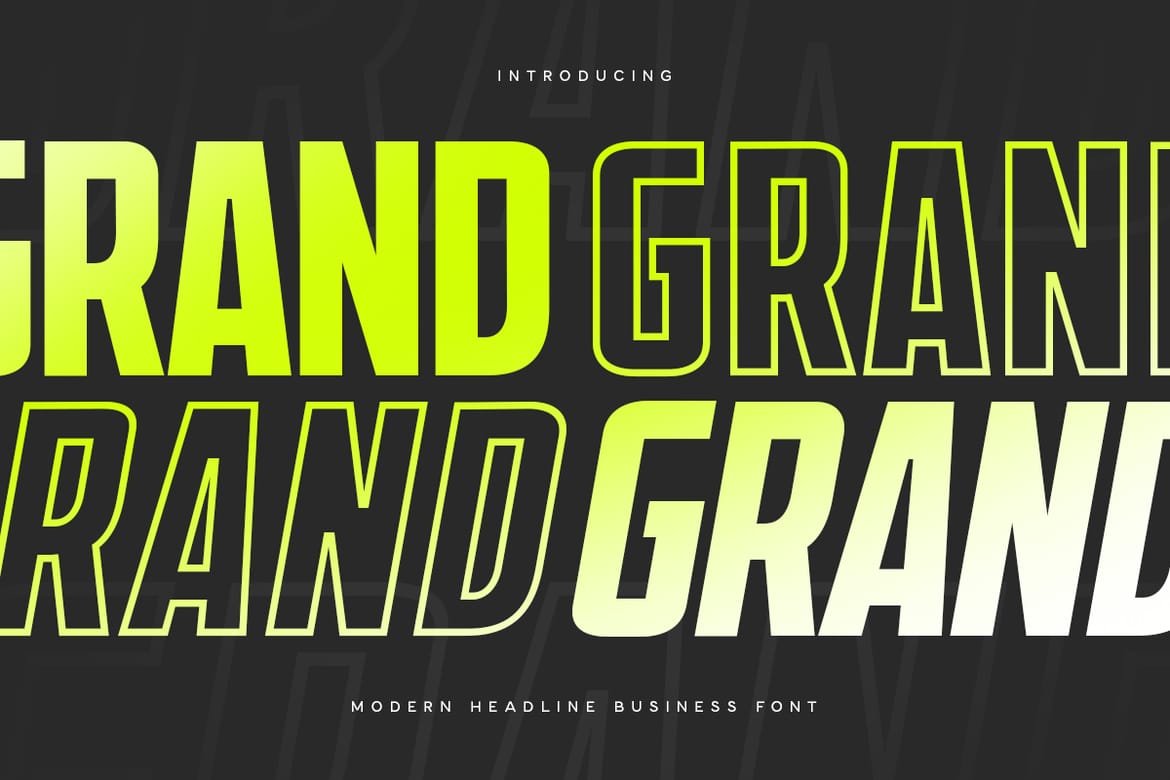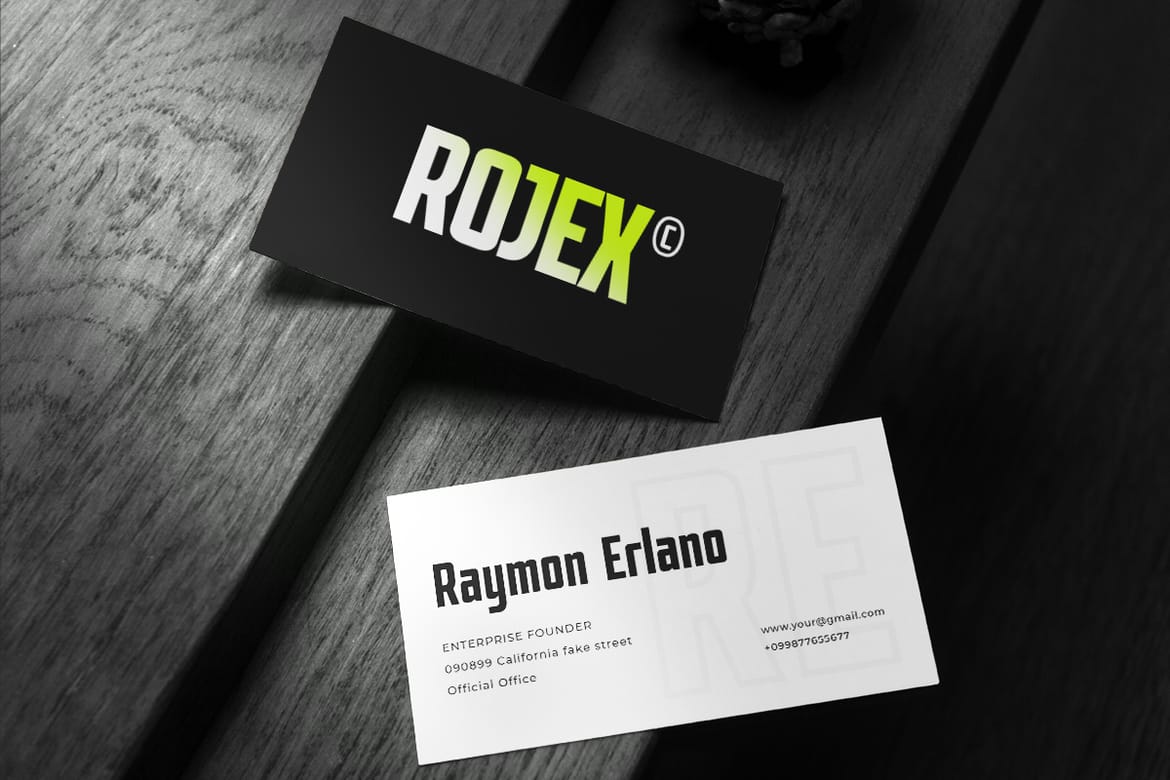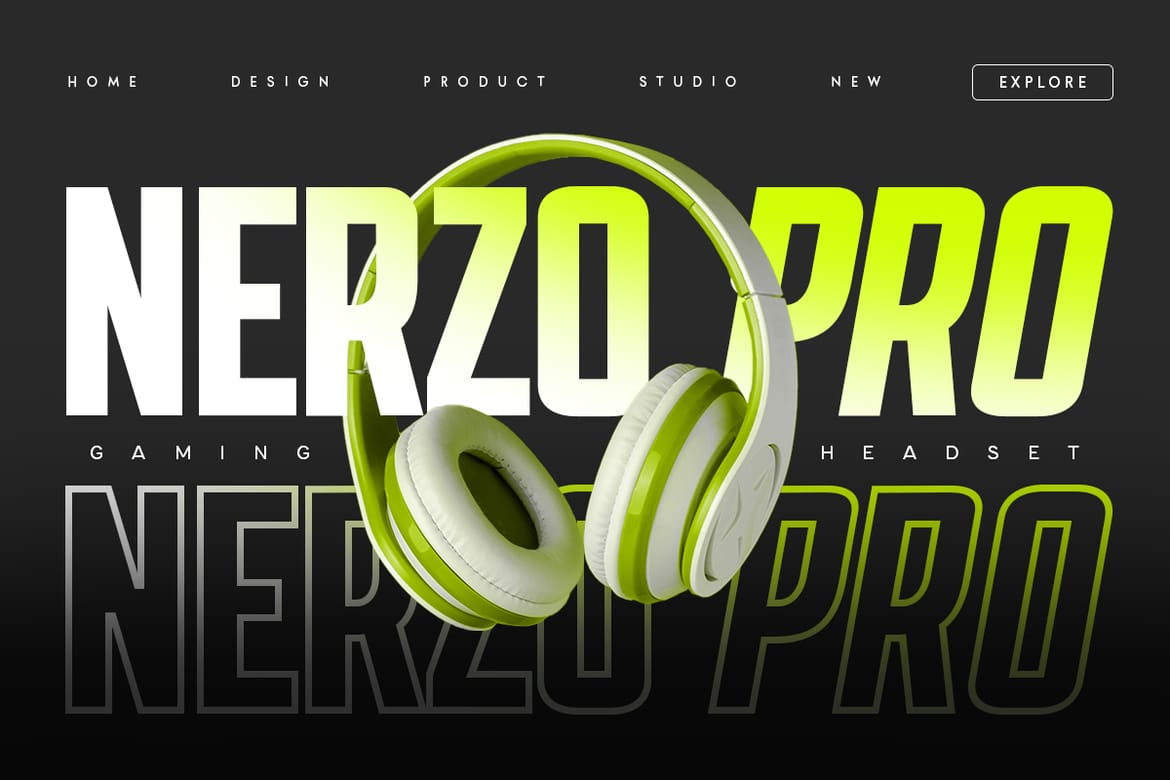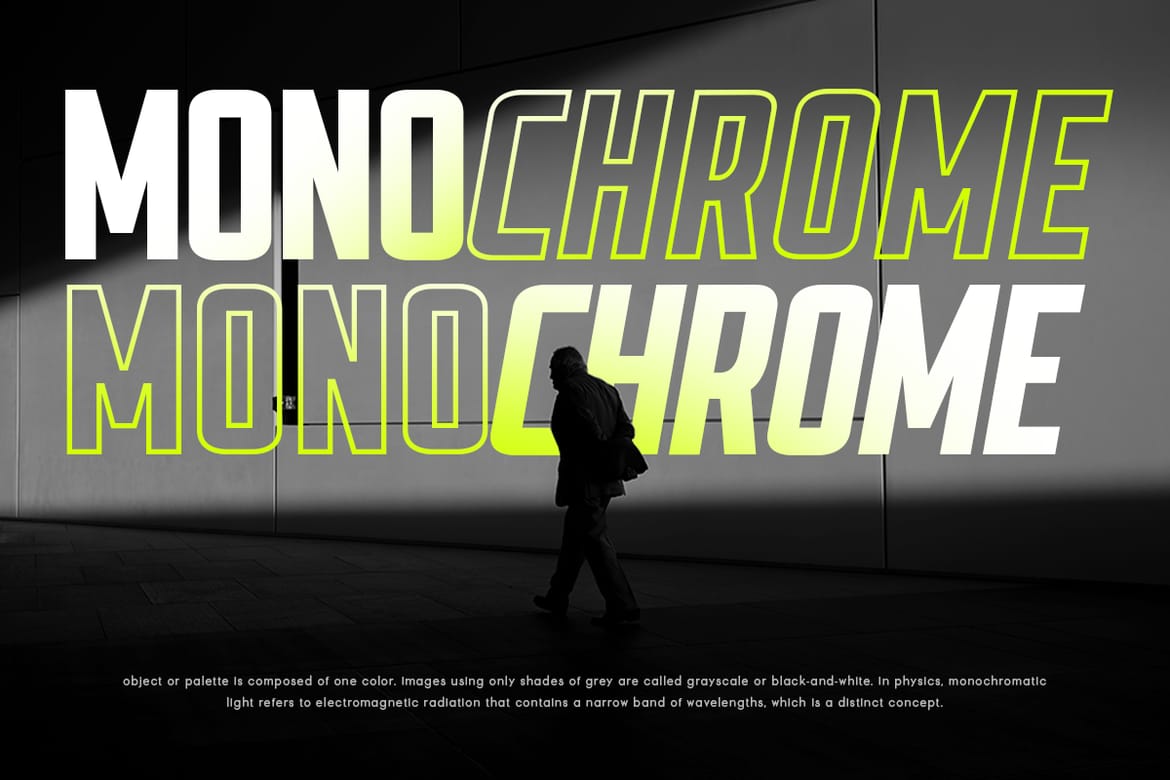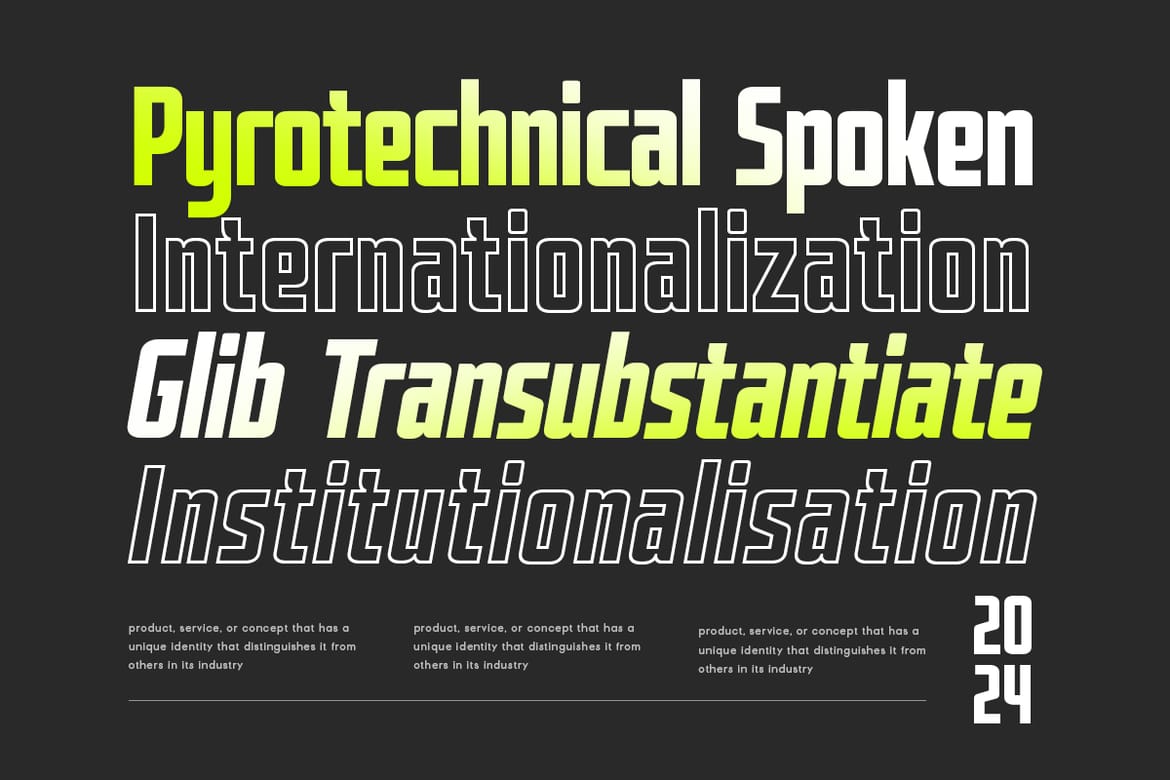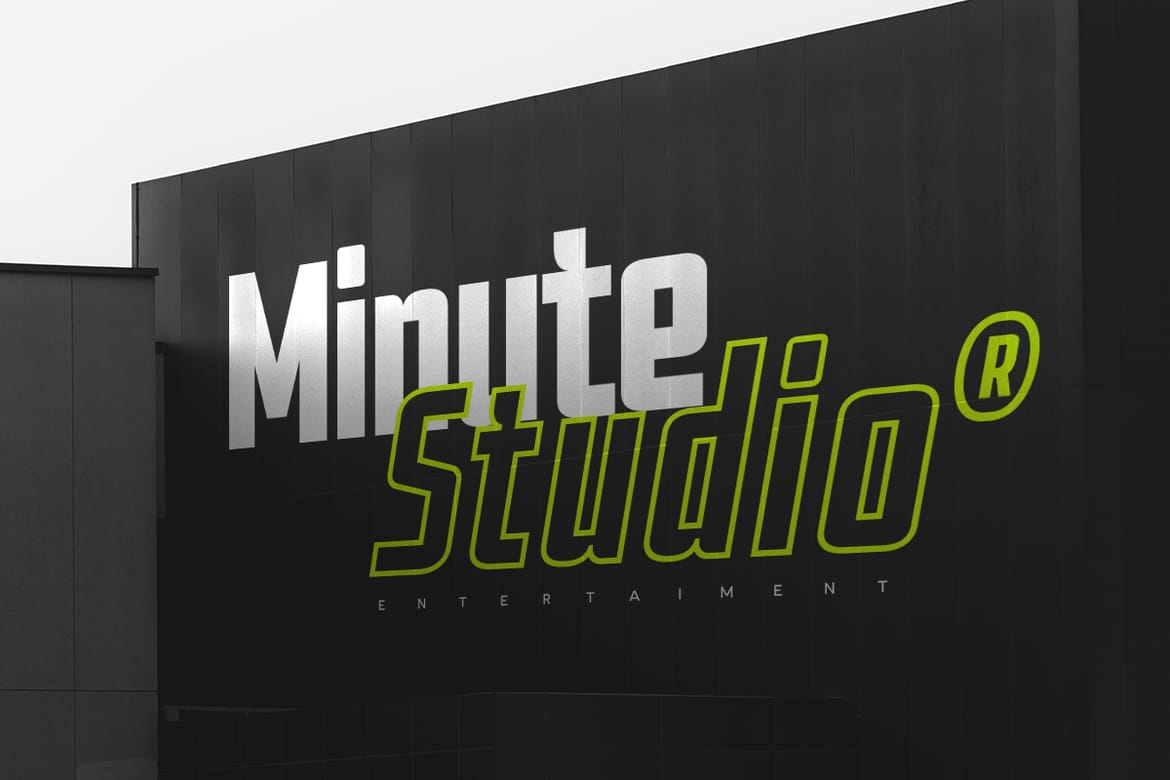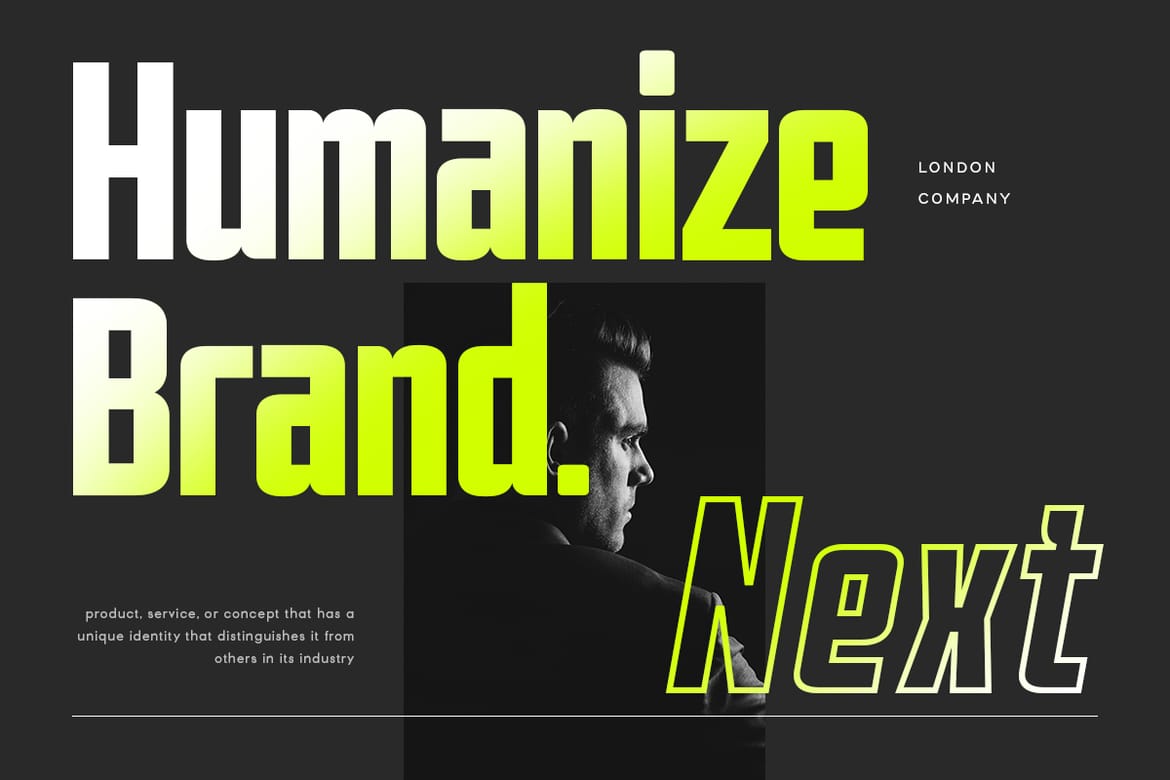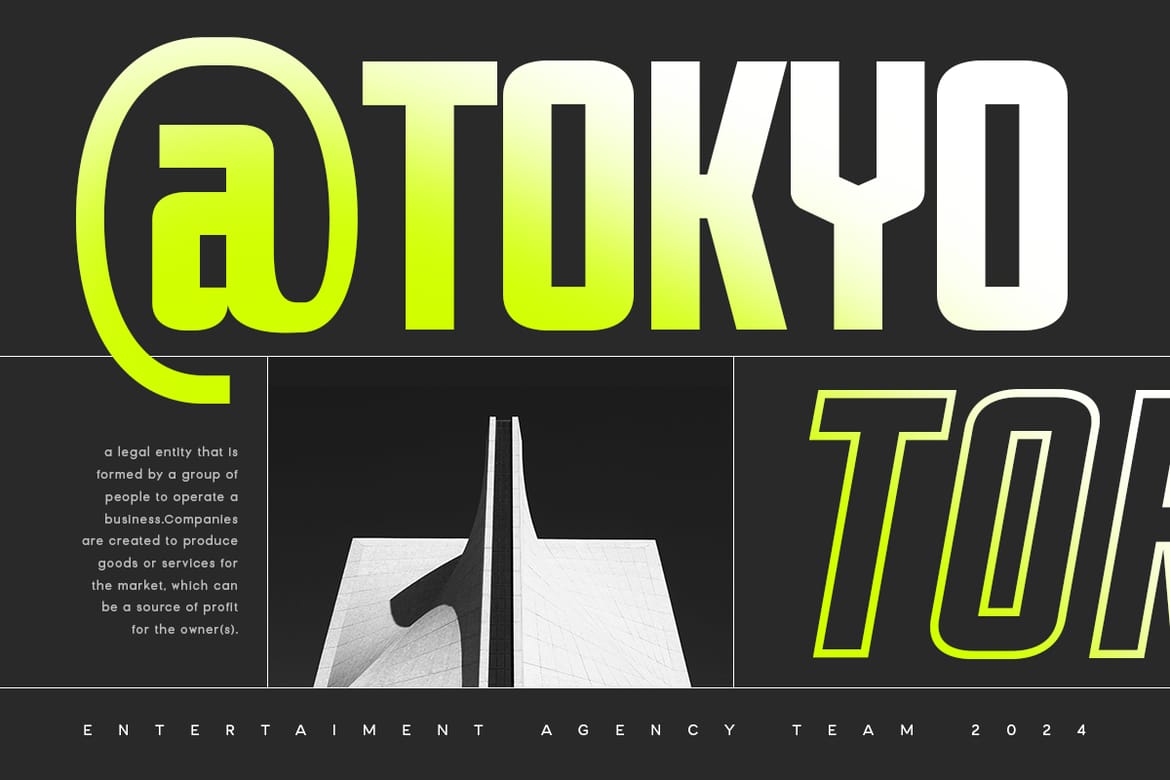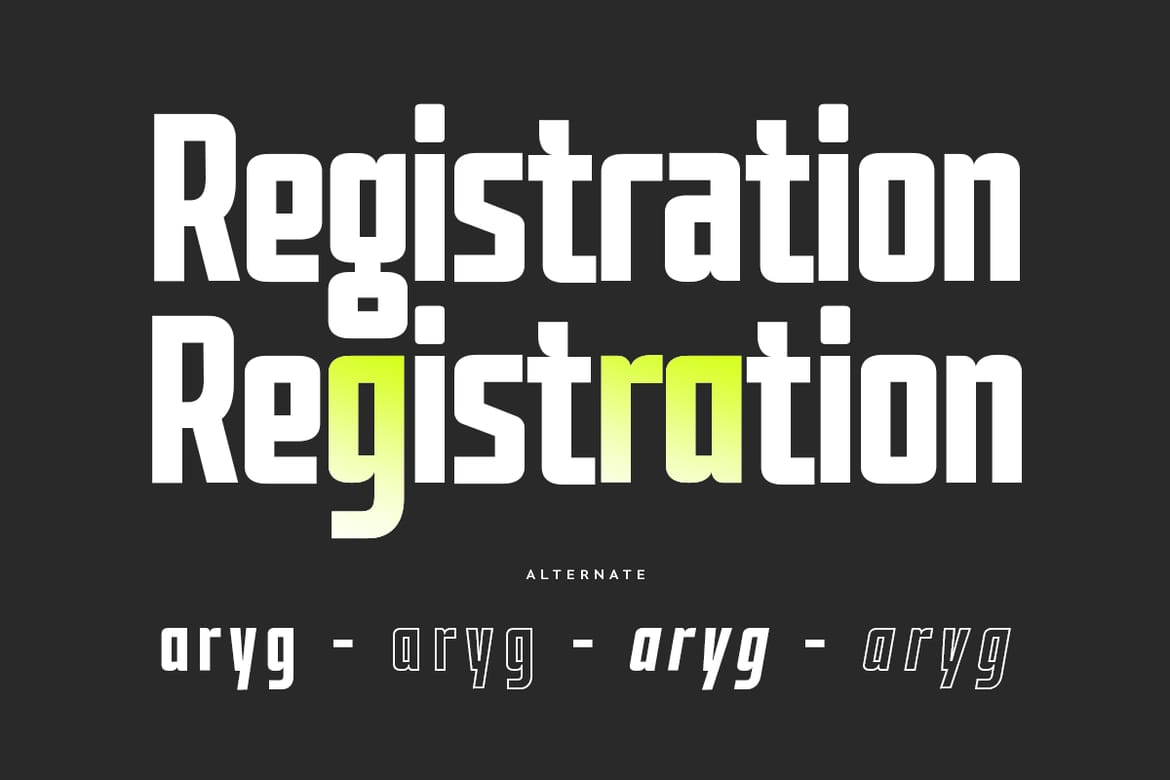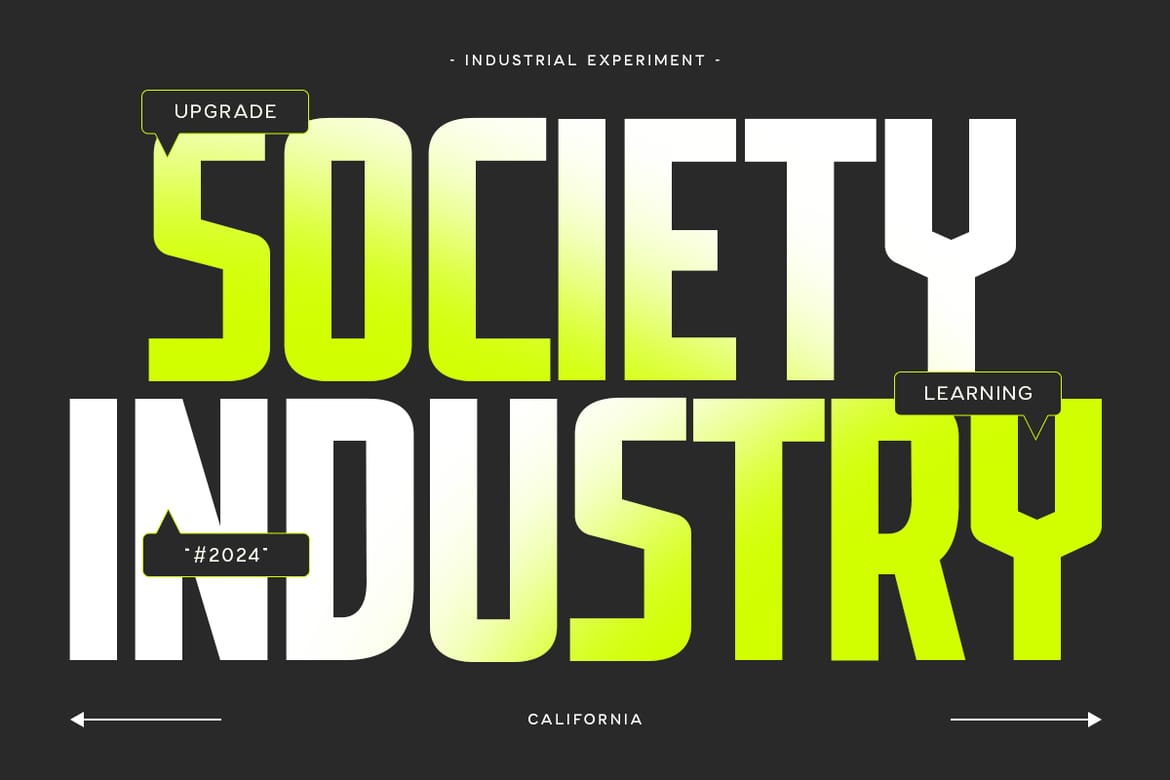
A Modern Headline Corporate font that we created special for Business branding needs, with extra 4 variations in unique shape of font will be ready to add value of your brand. It so nice to leverage designer or product owner that need solutions to make their design look more Professional and Modern. And specially for Grand font, We prepared 4 variation of unique characters and any alternative of them to help you create unlimited variations for your creative needs.
Grand Modern Headline Business Font ready with:
4 options (Regular, Italic, Outline-Regular, Outline-Italic) of font style to get unique creative characters
Preview as inspirations that you can do with Grand font
Ready with Lowercase and Uppercase characters
- 4 style variations included
- Uppercase and lowercase characters